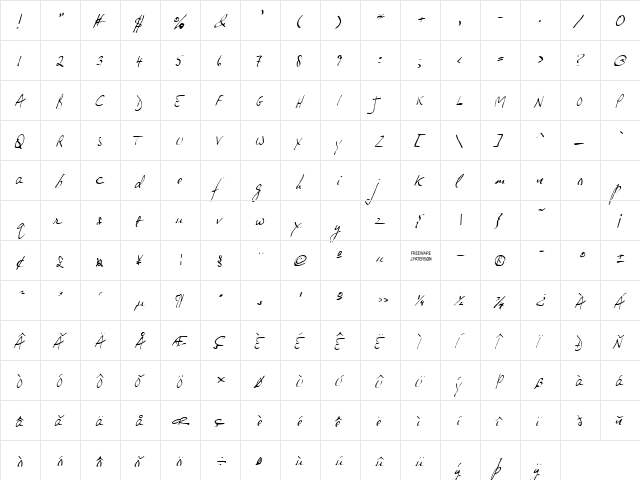
JP Hand Slanted
Design Context for JP Hand Typeface
JP Hand flows with the natural rhythm of handwritten lettering, making it ideal for designs that call for warmth and personal expression.
Font Pairing: Combine JP Hand with a simple geometric sans for maximum contrast — the tension between flowing curves and clean structure is a classic typographic pairing.
Pro Tip: Use JP Hand for short runs of text — names, titles, or taglines. Extended body copy in script faces tires the eye quickly.